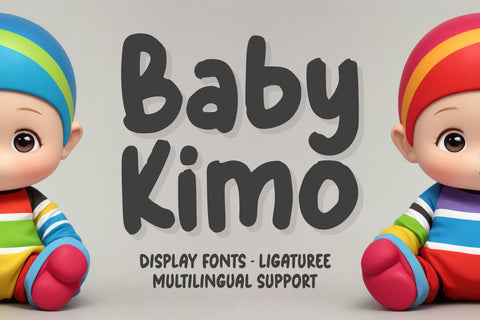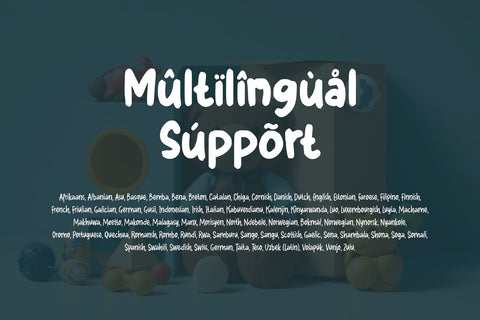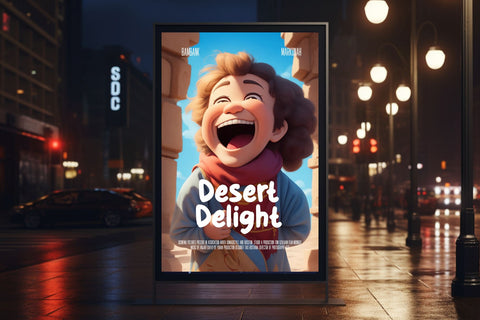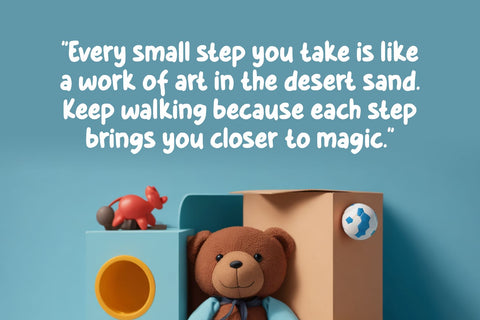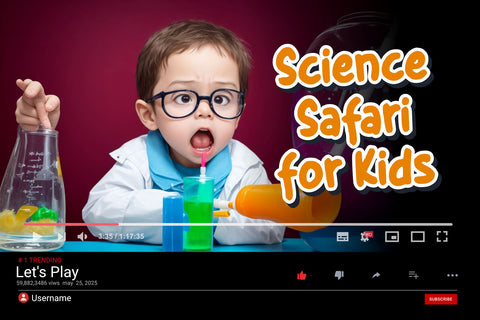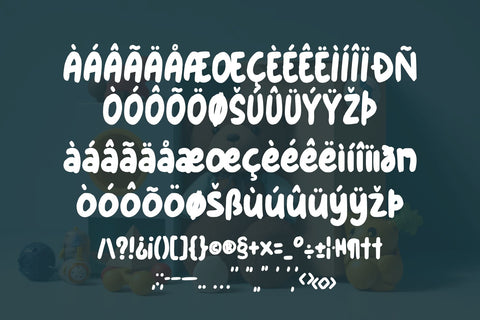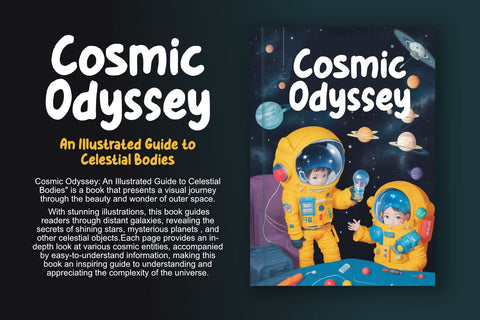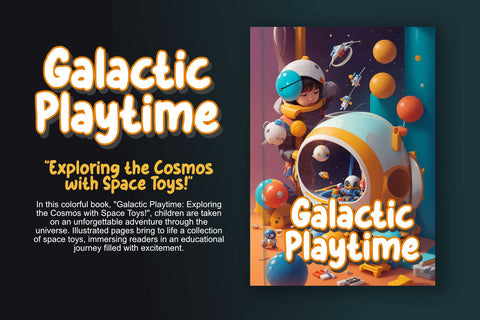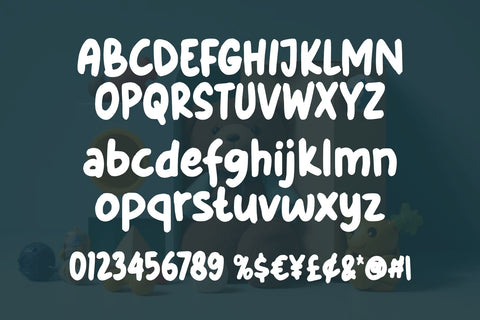
Baby Kimo - Display
The "Baby Kimo" display font is a typeface specifically designed to convey a cute, friendly impression suitable for children's content. With its gentle and adorable design, "Baby Kimo" features rounded characters that are welcoming and easily recognizable for children who are just learning to read.
Each letter in "Baby Kimo" is carefully crafted to radiate joy and warmth, making it perfect for projects targeting a young audience. This font can provide an appealing visual touch while maintaining good readability, offering a delightful reading experience for children. "Baby Kimo" is an ideal choice for children's book titles, posters, or other creative materials aiming to create a cheerful and friendly atmosphere.
+ Ligaturee